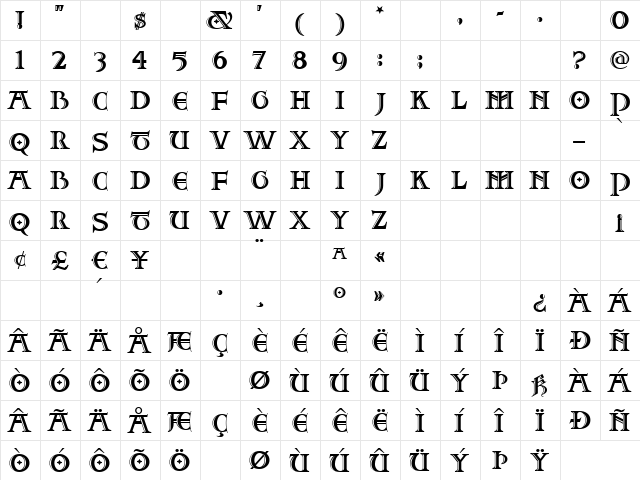
TwoForJuanNF Regular
Design Context for TwoForJuanNF Typeface
TwoForJuanNF is a composed and adaptable typeface that performs quietly and consistently across a wide range of design contexts.